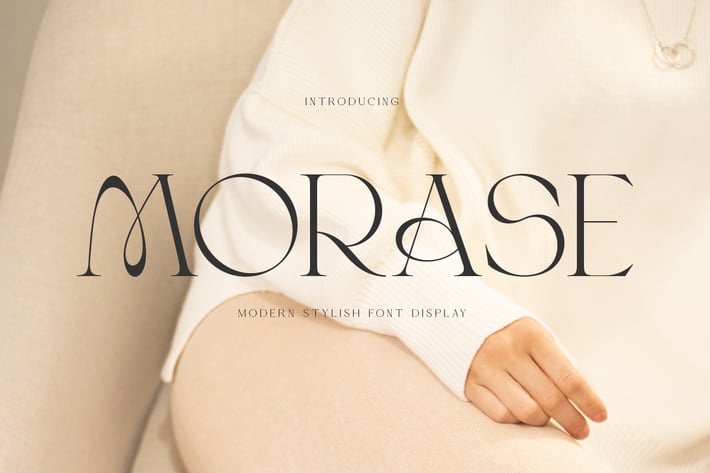
Morase Modern Stylish Font
Morase fonts includes uppercase letters, numerals, a large range of punctuation. Serif font with stylish style. Created for poster, web design, branding, illustrations, badges and some other works.